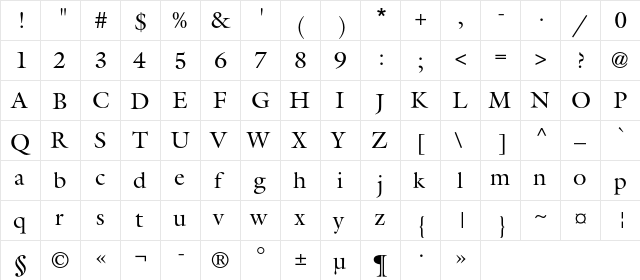
AGGalleonC Regular
Design Context for AGGalleonC Typeface
AGGalleonC takes a measured approach to typography — its balanced proportions and neutral character make it a reliable workhorse for both digital and print work.
Pro Tip: Pair AGGalleonC with a font of contrasting weight or personality to build a more expressive typographic hierarchy.